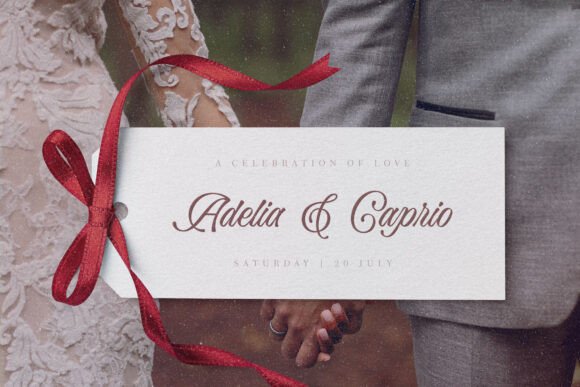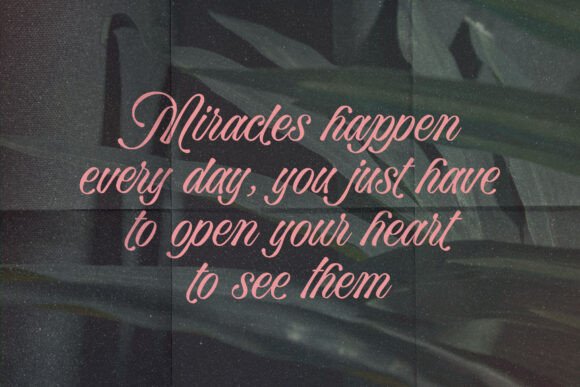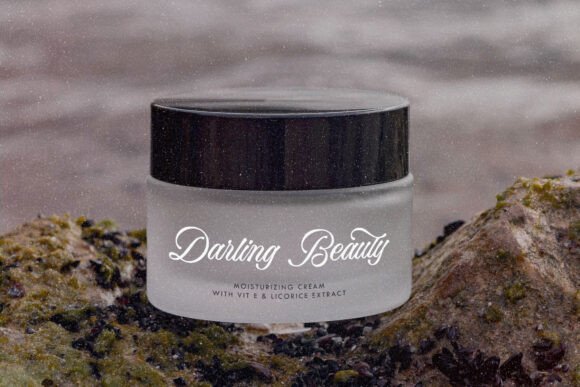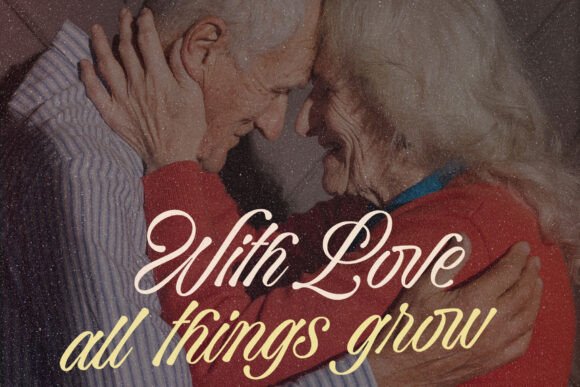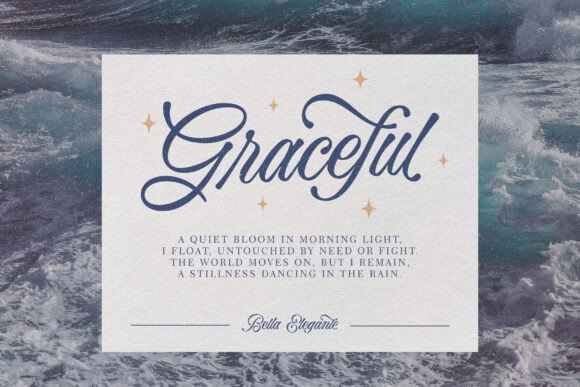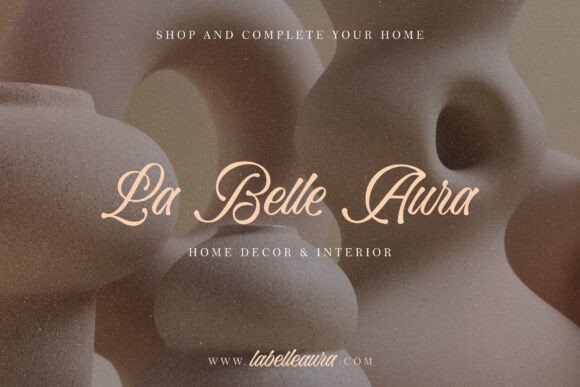
Unleash the Romance with Bella Elegante Font
Imagine yourself sipping champagne on a sun-kissed beach, surrounded by lush greenery, and the soft glow of candlelight. It’s a moment of pure bliss, and one that you’d want to cherish forever. As a designer, you know that capturing this essence in your work is what makes it truly special. That’s where Bella Elegante Font comes in – a chic calligraphy font that embodies the very spirit of romance and elegance.
This beautiful font is perfect for adding a touch of sophistication to your wedding invitations, branding, or any project that demands a sense of refinement. With its incredibly distinct and timeless style, Bella Elegante Font is a valuable asset for designers who want to create spectacular designs that leave a lasting impression.
Bella Elegante Font Key Features
- Font Family: A high-end, elegant script font ideal for luxury branding, invitations, and high-end designs.
- Size: Offers 400 glyphs, providing an extensive character set for various languages and special characters.
- Unique Characteristics: Distinctive swashes, flourishes, and connecting strokes create a sophisticated, elegant feel.
- Font Style: Available in Regular, Italic, Bold, and Bold Italic styles, allowing for versatility in design applications.
Bella Elegante Font Review
As a designer, I was excited to dive into the Bella Elegante font. Here’s my honest review.
- Elegant script style: Bella Elegante has a beautiful, flowing script style that adds a touch of sophistication to any design.
- Versatile: This font is perfect for wedding invitations, greeting cards, and other creative projects that require a delicate, feminine feel.
- Clear legibility: Despite its elegant appearance, Bella Elegante is still easy to read, making it a great choice for body text or headings.
- Limited language support: Bella Elegante is a script font, which means it may not be the best choice for languages that require more complex typography.
- Not suitable for large text: While Bella Elegante is beautiful at smaller sizes, it may become difficult to read at larger sizes.
Overall, I think Bella Elegante is a beautiful font that works well for specific projects. While it has some limitations, its elegant style and versatility make it a great addition to any designer’s toolkit.
Getting the Most Out of Bella Elegante Font
To get the most out of Bella Elegante Font, use it for:
- Formal event invitations and announcements.
- Luxury branding and marketing materials.
Remember to pair Bella Elegante with elegant imagery and design elements to create a sophisticated look.
Alternatives to Bella Elegante Font
Great Vibes is a modern script font that is ideal for creating elegant and sophisticated designs. It features flowing lines and a refined look that is perfect for wedding invitations, branding, and other high-end designs. Compared to Bella Elegante, Great Vibes has a more relaxed and casual feel, making it suitable for a wider range of applications.
Carolyna Pro is a elegant and sophisticated script font that is designed for high-end designs. It features intricate details and a refined look that is perfect for luxury branding, invitations, and other premium designs. Compared to Bella Elegante, Carolyna Pro has a more luxurious and high-end feel, making it suitable for exclusive designs.
Dancing Script is a elegant and flowing script font that is perfect for creating beautiful and elegant designs. It features a refined look and a classic feel that is ideal for wedding invitations, branding, and other high-end designs. Compared to Bella Elegante, Dancing Script has a more classic and timeless feel, making it suitable for traditional designs.
Alex Brush is a elegant and sophisticated script font that is designed for high-end designs. It features a refined look and a classic feel that is perfect for luxury branding, invitations, and other premium designs. Compared to Bella Elegante, Alex Brush has a more elegant and refined feel, making it suitable for exclusive designs.